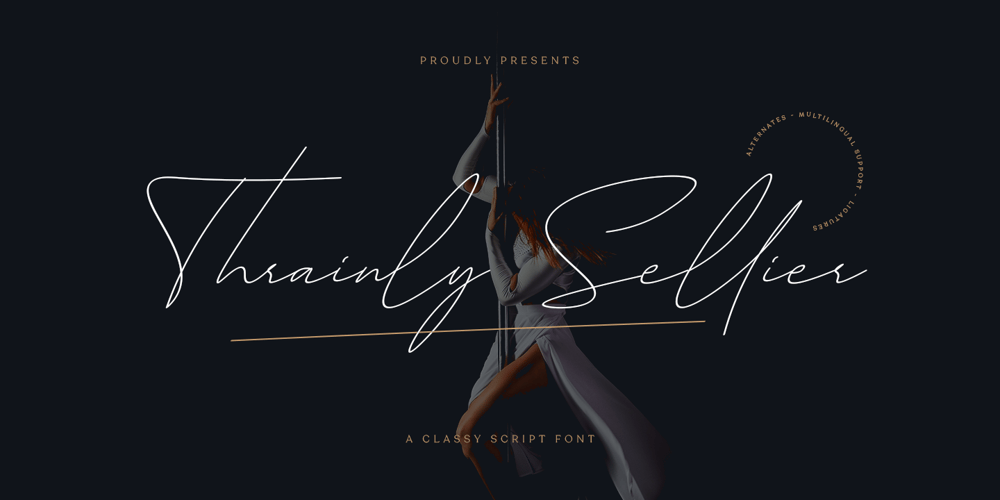
Thrainly Sellier
Thrainly Sellier font
Thrainly Sellier Font Family was designed by Eep Apringga and published by Namara Creative Studio. Thrainly Sellier contains 1 styles and family package options. Thrainly Sellier is a stylish and incredibly elegant script font, Includes uppercase and lowercase letters, numerals, punctuation, alternates, ligatures, swash and multilingual support. It looks stunning on wedding invitations, thank you cards, quotes, greeting cards, logos, business cards and every other design which needs a handwritten touch.